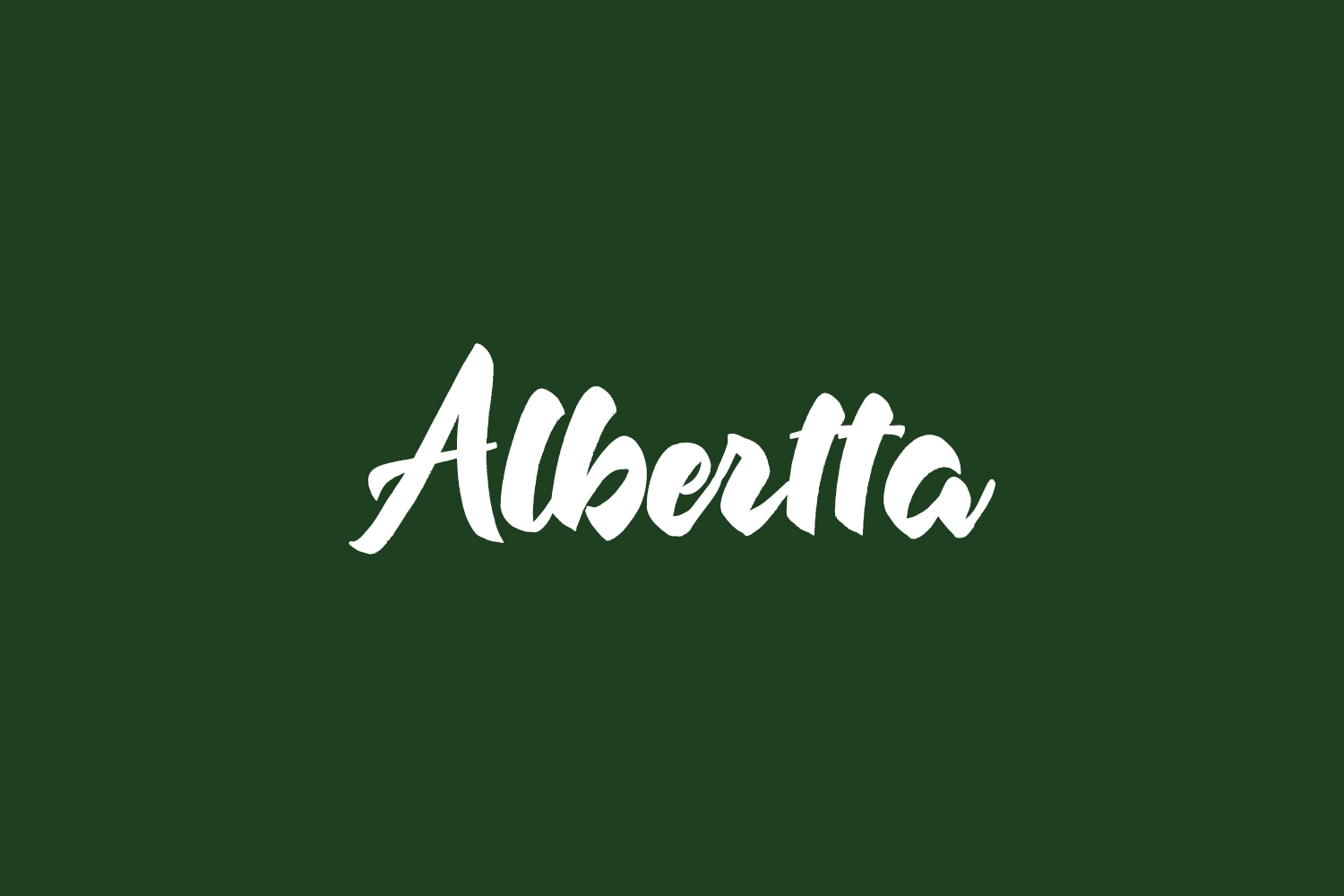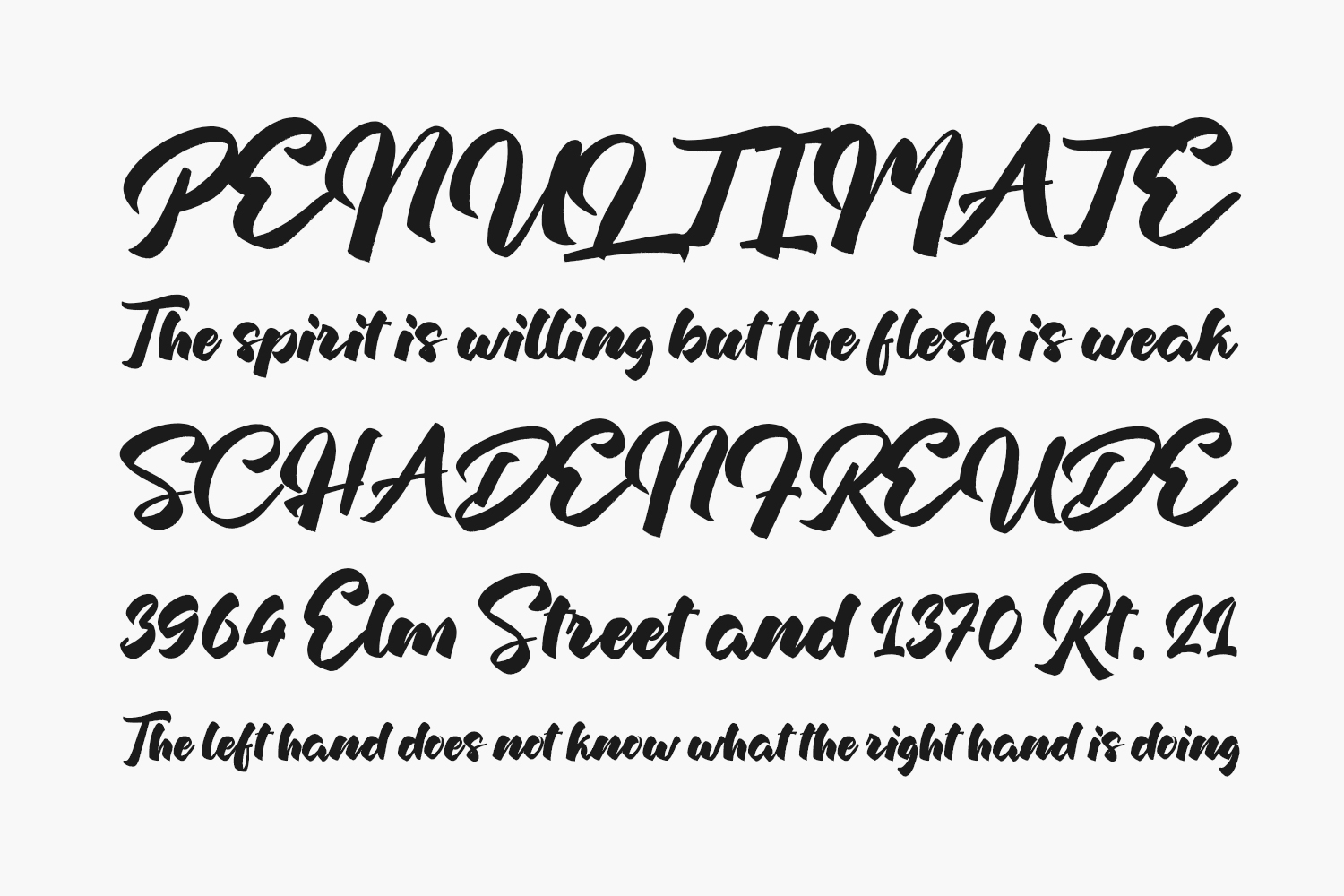
Albertta Free Font is an amazingly bold handwritten font with a bold feel. It will turn any design idea into a stand out. was designed by Perspectype Studio and is free for personal use only. Please purchase the full version for commercial use.